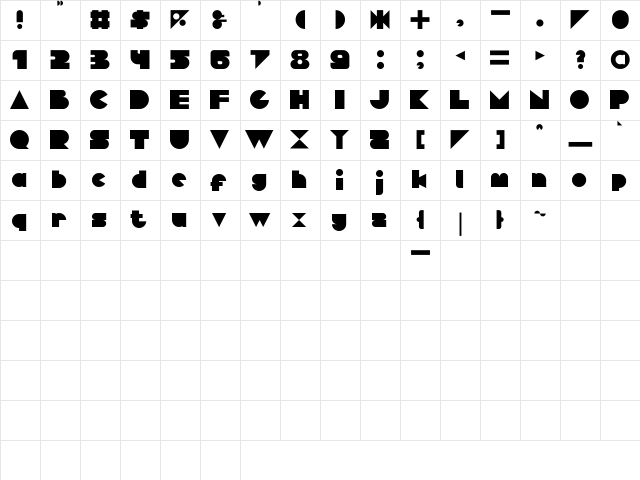
Dagelan Malam Regular
Design Context for Dagelan Malam
Dagelan Malam is a composed and adaptable typeface that performs quietly and consistently across a wide range of design contexts.
Pro Tip: Use Dagelan Malam in both headline and body roles to test its range before committing to a single application.